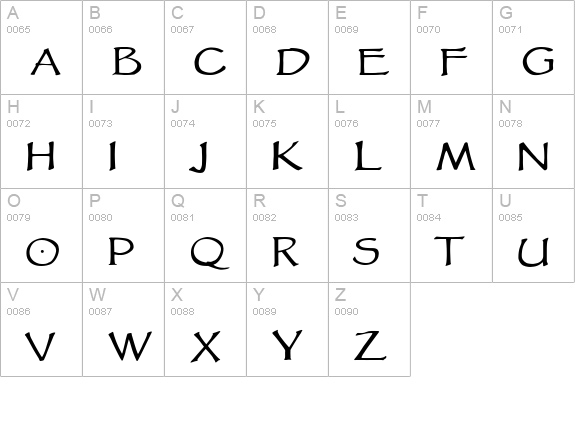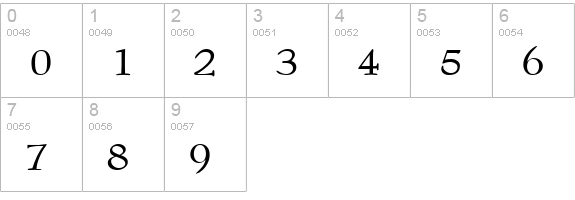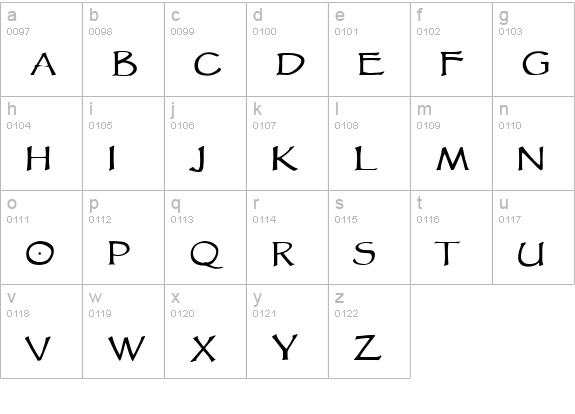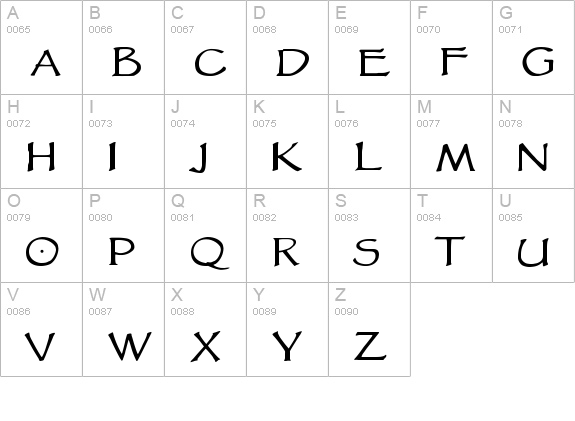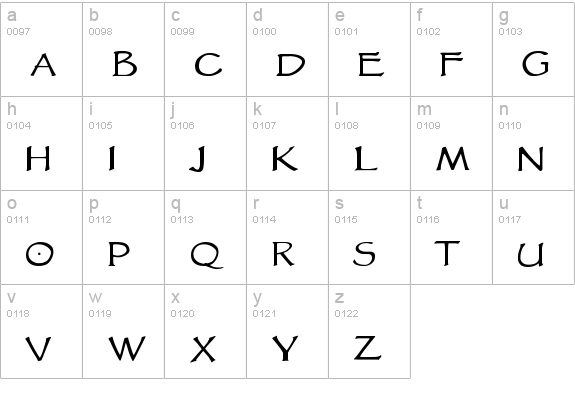
VTCGoblinHandSC Font Details
Introducing VTCGoblinHandSC, a captivating and whimsical font that will transport you to a world of magic and enchantment. This font is the perfect choice for any project that needs a touch of playfulness and a hint of mischief. VTCGoblinHandSC features unique, hand-drawn letterforms with an edgy twist. Its irregular strokes and uneven lines give it a charmingly imperfect look, adding character and personality to your designs. Whether you're creating children's books, party invitations, or quirky branding materials, this font will bring your creations to life with its distinctive style. What makes VTCGoblinHandSC even more remarkable is that it is absolutely free to download at FontsMarket.com. Yes, you heard it right - this incredible font is freely available for you to use and enjoy. So, go ahead and let your imagination run wild as you explore the endless possibilities that this font has to offer. With VTCGoblinHandSC, you can effortlessly capture the attention of your audience and leave a lasting impression. Its playful nature will evoke a sense of joy and wonder, making it ideal for projects aimed at children or those who are young at heart. From book covers to posters and everything in between, this font will add a touch of magic to your designs. So, don't miss out on this fantastic opportunity to enhance your creative projects with VTCGoblinHandSC. Download it for free at FontsMarket.com and embark on a journey into a world of unlimited imagination. Let your ideas take flight and watch as this delightful font adds an extra touch of enchantment to your designs.